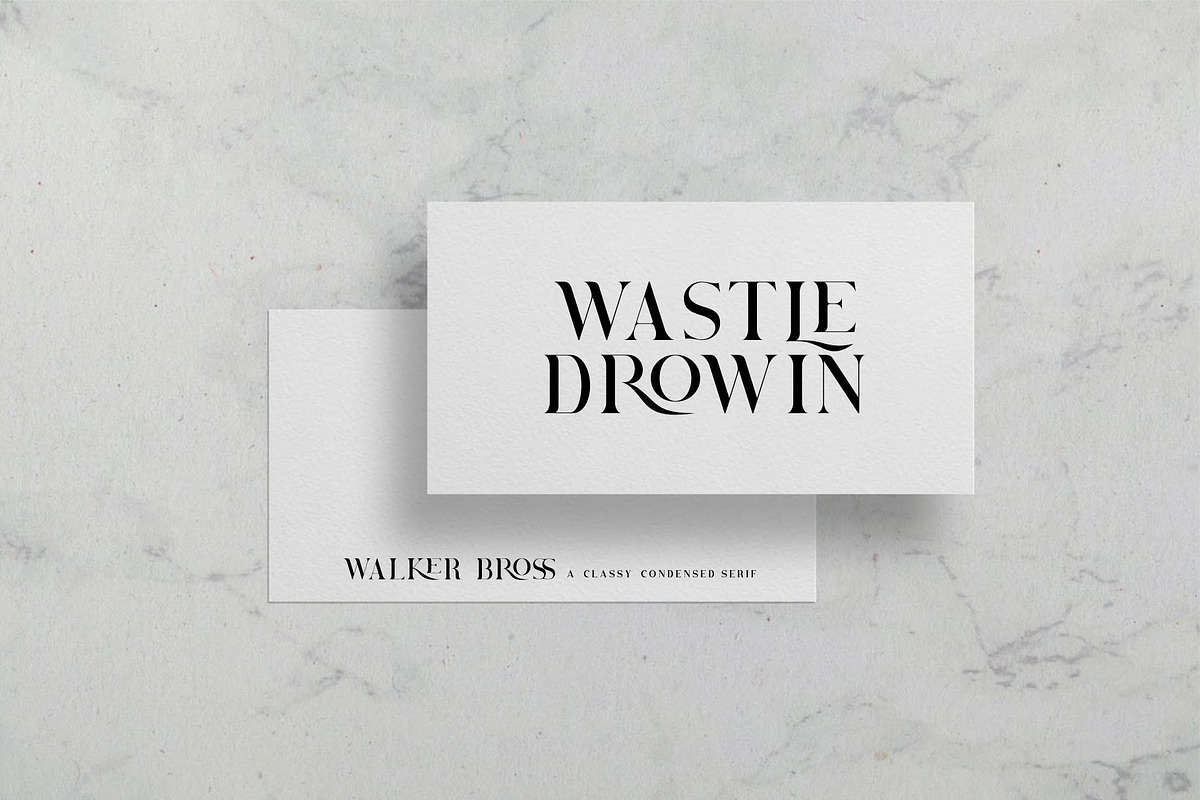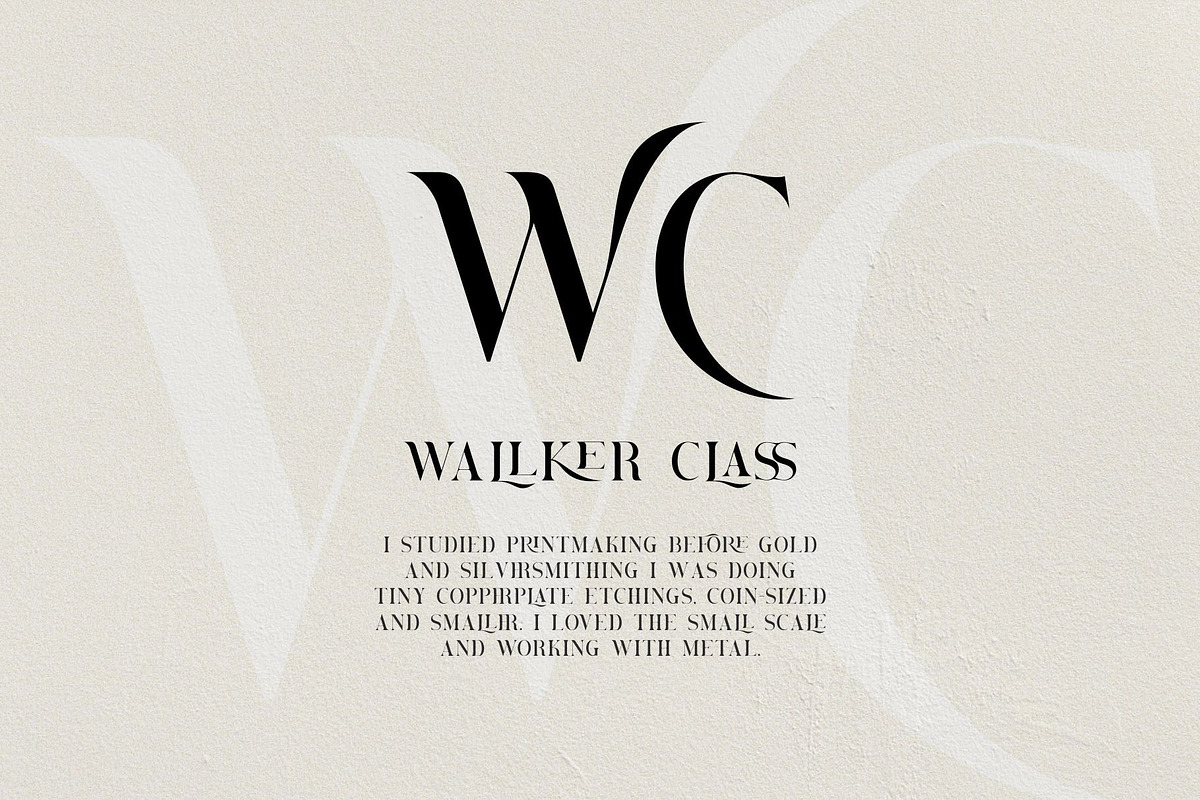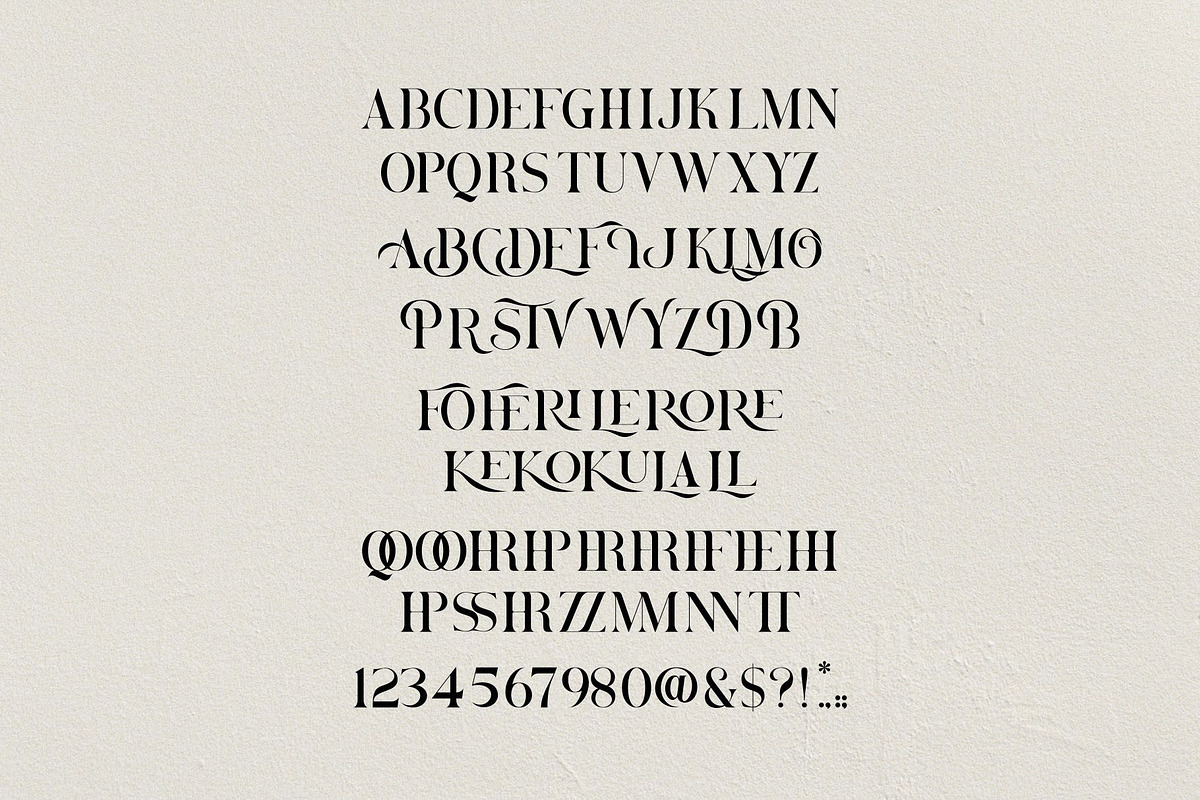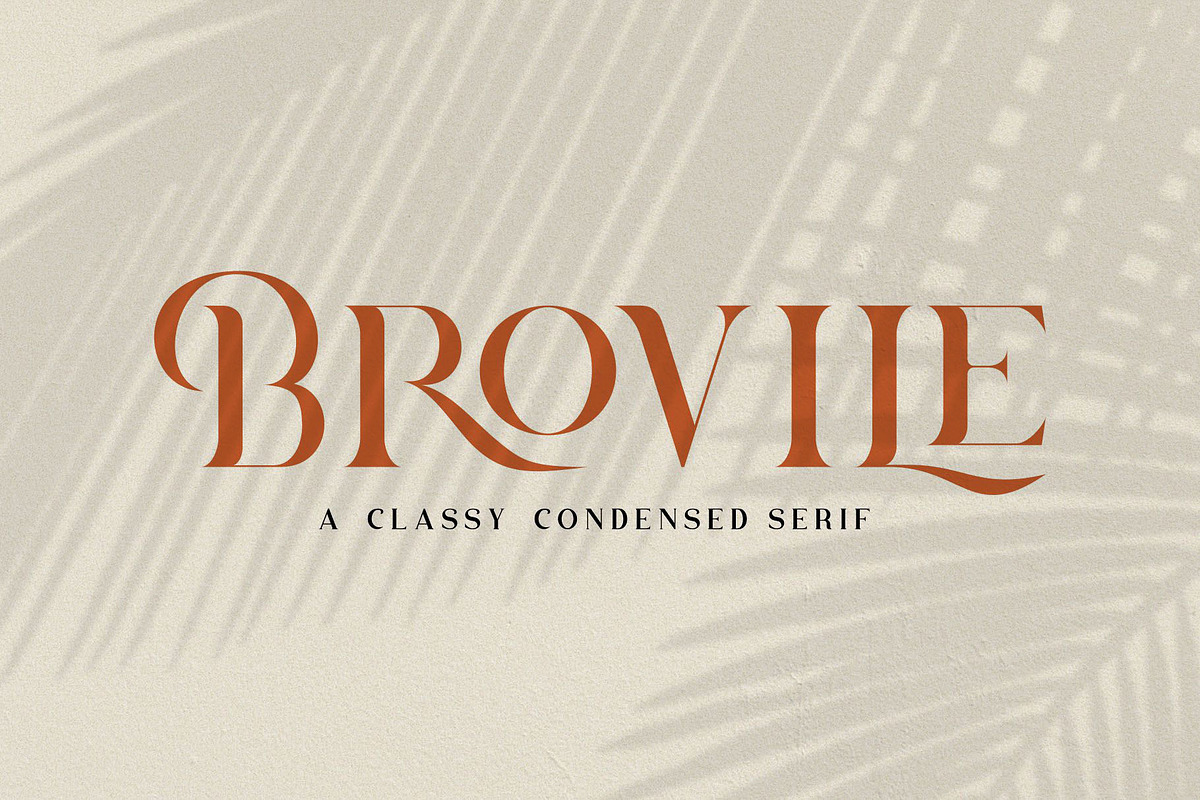
Brovile. A Classy Serif
Brovile, is a wedge serif font that is sure to stand out! A little bit retro and a bit modern, Brovile. is great for logos, editorial or web design. The unique sharp serifs mixed with thin strokes give off a bold mid century architectural vibe.
This modern serif typeface features serifs. Perfect for gorgeous logos & titles, The Brovile. will pair beautifully with many fonts and work well with whatever project you're working on.